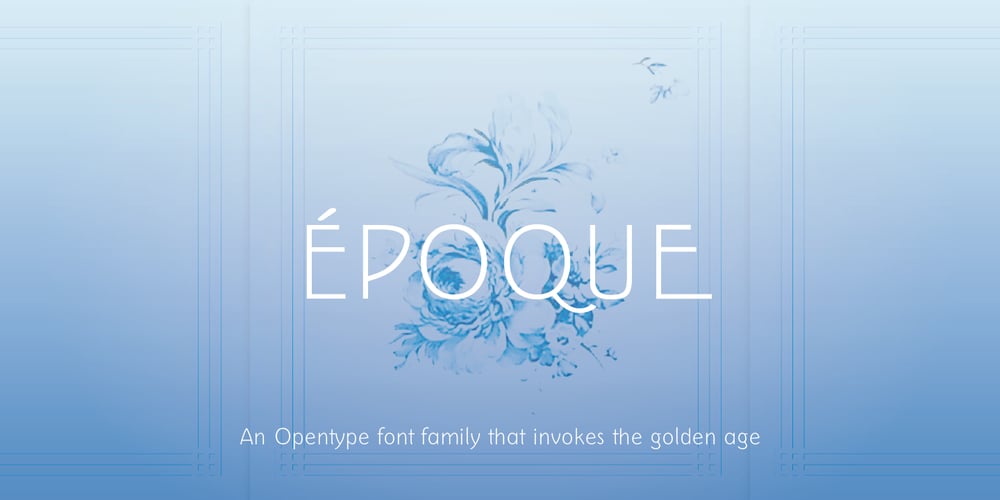
Epoque Font Family was designed by Rafael Ferreira and published by Rafaeiro Typeiro. Epoque contains 8 styles and family package options. Époque initially came from composing a fashion catalogue with some materials from the Brazilian Amazon. The pieces of the collection used natural caoutchouc as raw material and the design of capital letters use forms that refer to the typography of the historical period 1890 – 1910 in which caoutchouc was the main driving force of the Amazonian economy. This typeface has a complete set of numerals, a set of standard ligatures, in addition to alternates in specific glyphs and a large set of discretionary ligatures composed mainly for UPPERCASE. Époque family is comprised of four weights without italics(with an alternate set in place). It’s a typeface recommended for titles, logos, and posters.